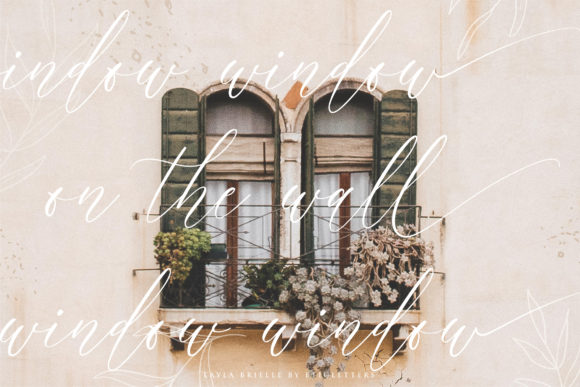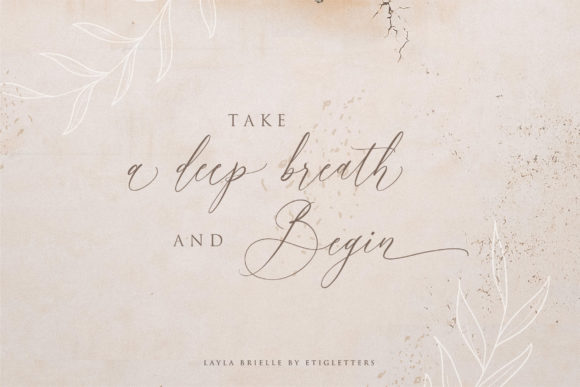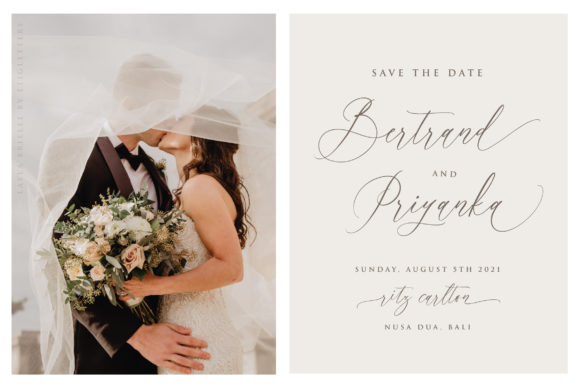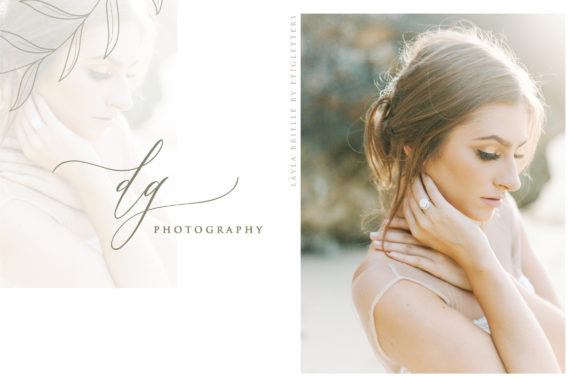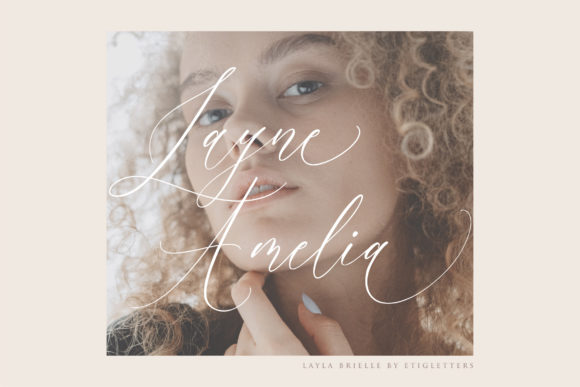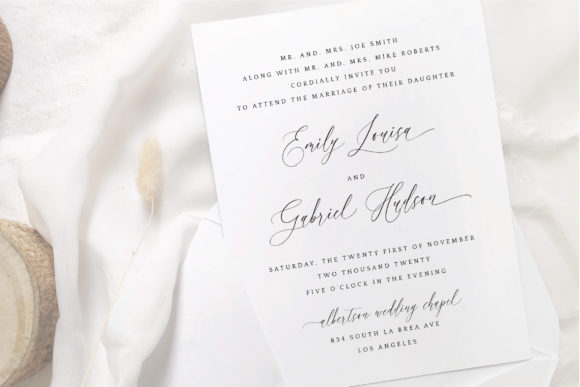
Introduction to Layla Brielle Font
There’s something magical about the moment when a design comes together, and every element feels just right. You’re pouring over your latest project, tweaking the layout, and adjusting the typography. And then, you stumble upon the perfect font – the one that elevates your design from good to great. For many designers, that font is Layla Brielle Font. With its elegant, flowing handwritten style, it’s a game-changer for any creative project.
Whether you’re working on a high-end branding project or a personal blog, Layla Brielle Font is a valuable addition to your design arsenal. Its PUA encoded design allows for easy access to all glyphs and swashes, making it a breeze to customize. Plus, its transparent background and high-quality design make it the perfect resource for any designer looking to take their work to the next level.
Key Features of Layla Brielle Font
- Unique, hand-drawn design with a feminine touch, perfect for creative projects and design resources.
- Features a transparent background, allowing for seamless integration into any design.
- High-resolution fonts with a resolution of 300 DPI, ensuring crisp and clear text display.
- Designed in a range of sizes, from 8pt to 72pt, making it suitable for various design applications.
- A high-quality font that is perfect for any creative project, from wedding invitations to branding materials.
Honest Review: Layla Brielle Font
I recently stumbled upon the Layla Brielle Font, and I must say it’s a beautiful addition to any design project. This high-quality font is perfect for creative projects that require a touch of elegance and sophistication. The font’s clean lines and delicate details make it a great choice for wedding invitations, branding materials, and other design elements that require a refined look.
Here are some of the things that work well about the Layla Brielle Font:
- ✨ Elegant and sophisticated design
- ✨ High-quality font with clean lines and delicate details
- ✨ Versatile and suitable for various design projects
- ⚠️ Limited font styles and weights available
- ⚠️ Not ideal for bold or dramatic design projects
Overall, I’m impressed with the Layla Brielle Font. It’s a great design resource for anyone looking to add a touch of elegance and sophistication to their creative projects. While it may not be suitable for every design scenario, it’s a great choice for those who want a high-quality font with a refined look.
Tips for Getting the Most Out of Layla Brielle Font
Experiment with different font sizes and styles to create a unique look. Use the font in combination with other design elements to add depth and interest to your project.
The Layla Brielle Font is ideal for use in creative projects such as branding, marketing materials, and digital art. Its high-quality design and versatility make it a valuable resource for designers and artists alike.